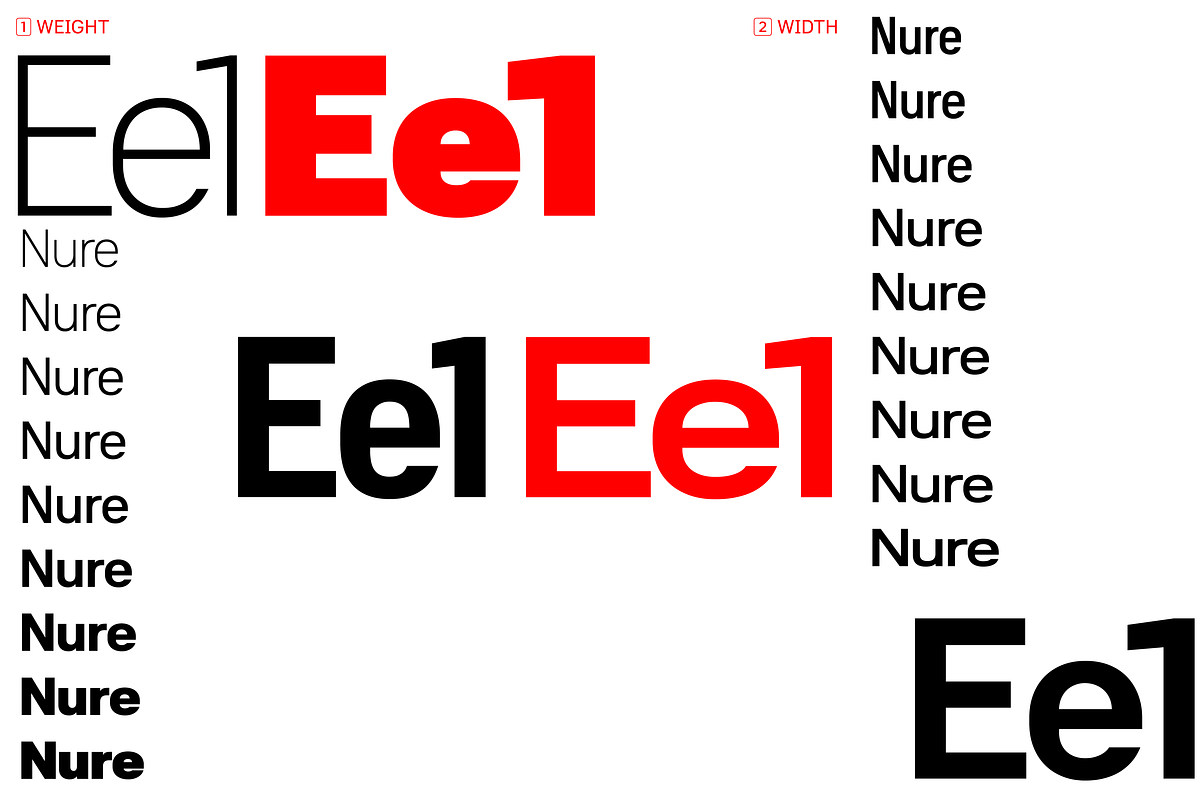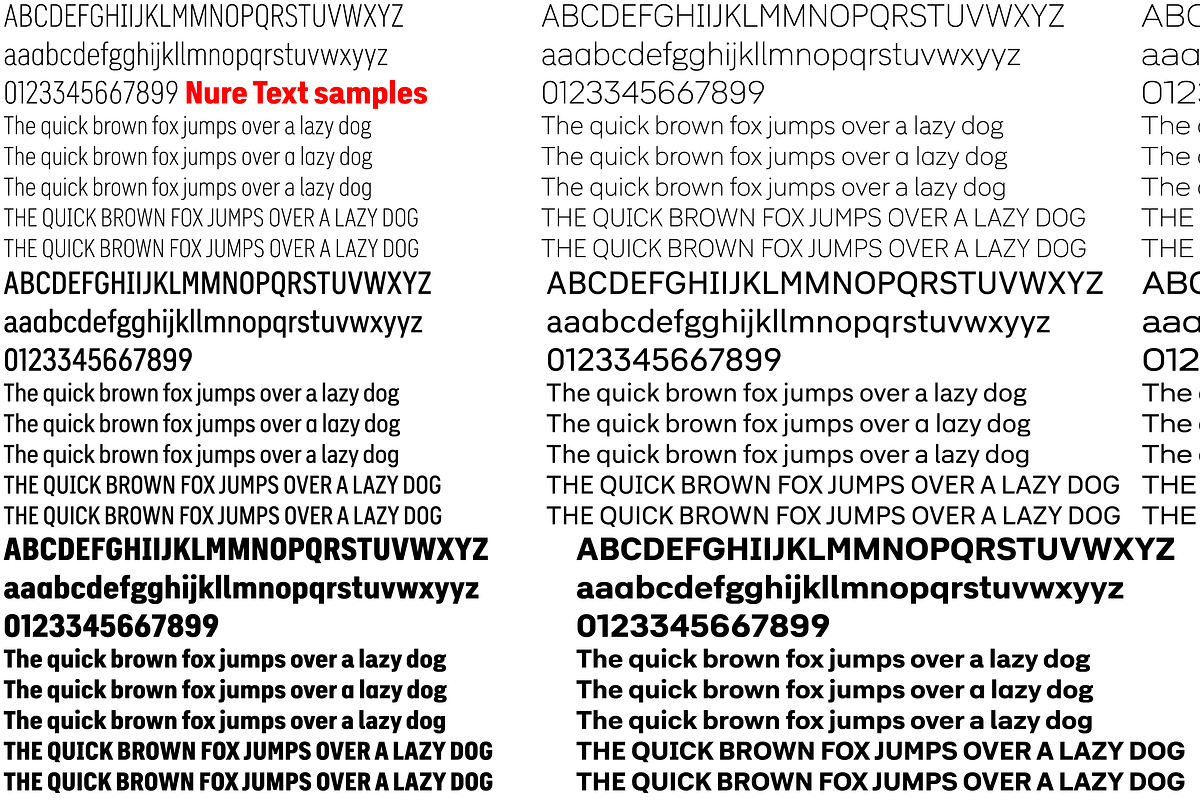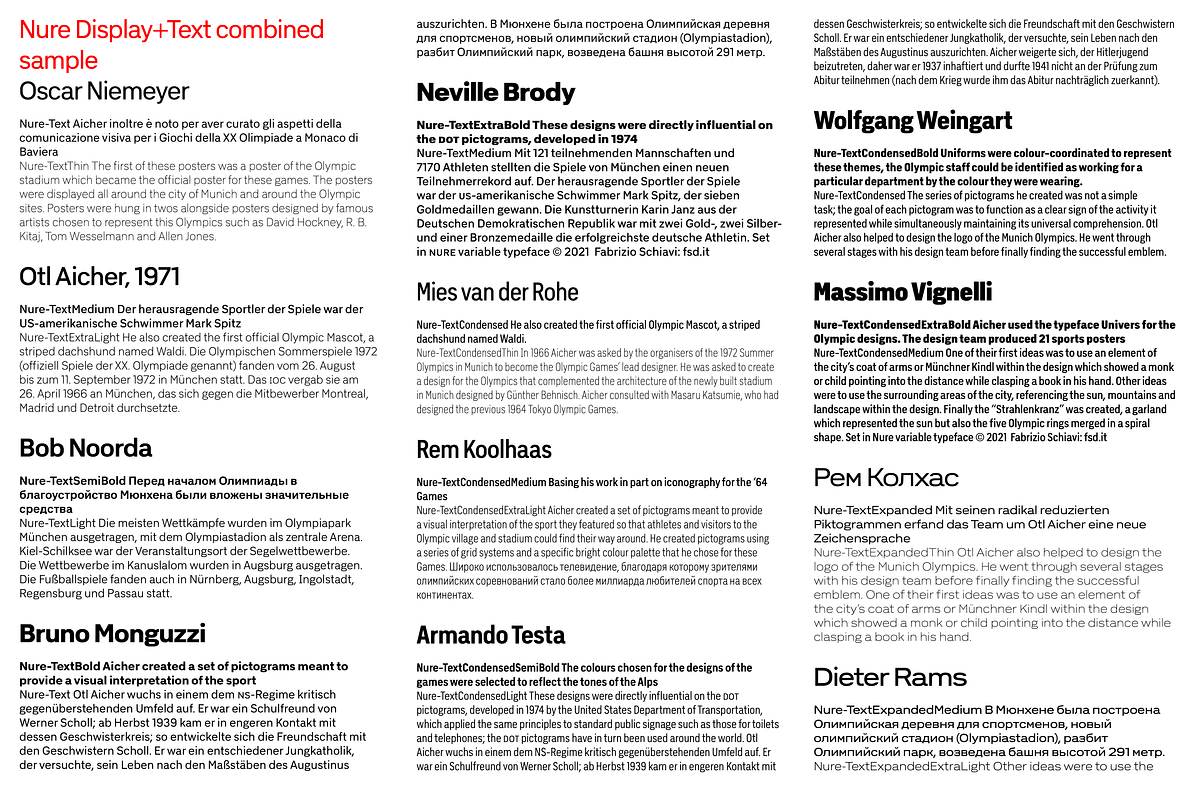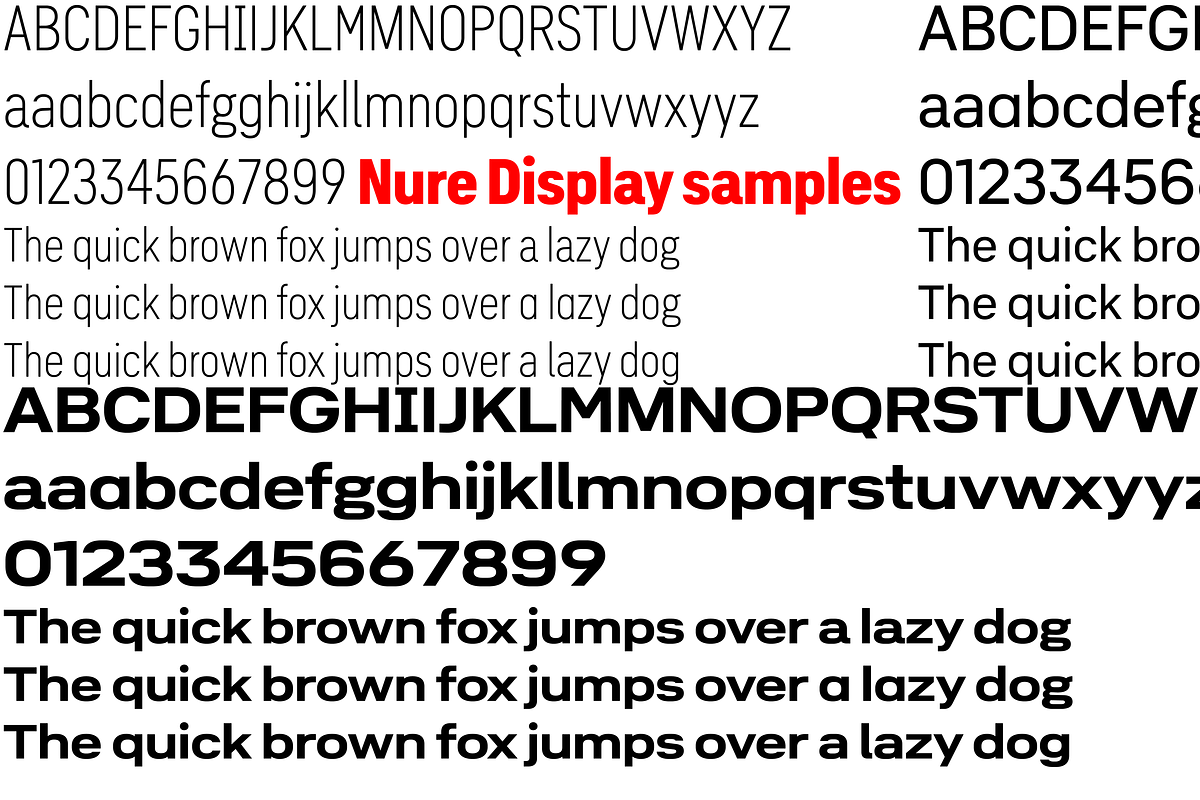
Nure
Nure is a versatile neo-grotesque sans serif font designed for a variety of applications. Its clean lines and modern aesthetic make it suitable for both text and display uses. The variable nature of the font allows for customization across weight, optical size, and width, catering to diverse design needs.